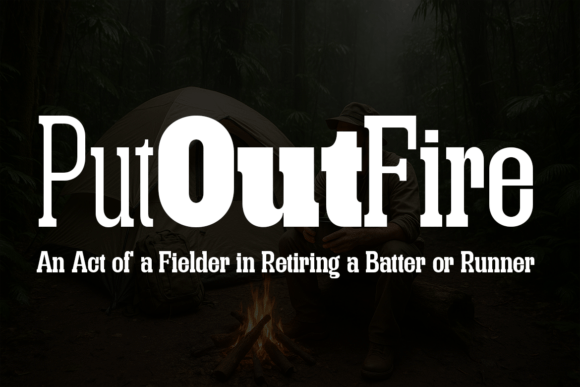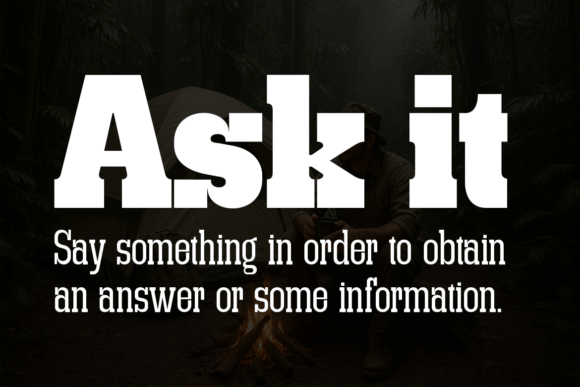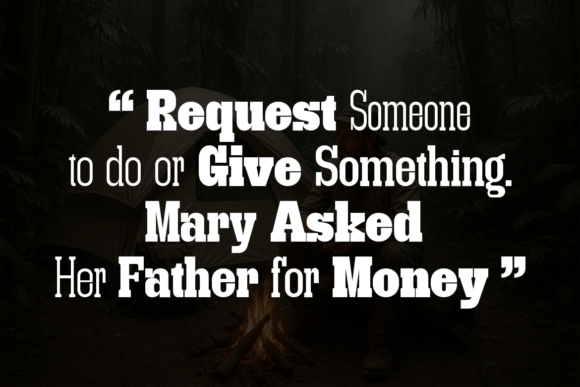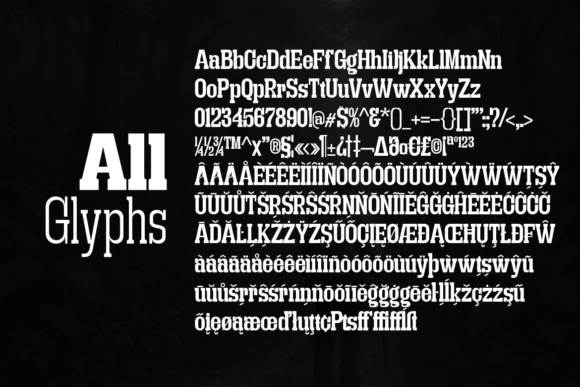
Introducing Getup Semi Condensed Font: A Powerful Slab Serif for Modern Designs
In the world of typography, a font can make or break a design. For designers and crafters looking for a unique and versatile typeface, GetUp Semi Condensed is an excellent choice. This font blends confident slab serif character with smoother text flow, making it perfect for a wide range of applications. In this article, we’ll explore the features and benefits of GetUp Semi Condensed and why it’s a must-have for any designer.
A Family of 10 Weights: Versatility at Its Best
GetUp Semi Condensed is part of the GetUp family, offering 10 full weights ranging from Thin to Extra Black. This extensive range allows designers to experiment with different styles and tones, ensuring that their text always looks polished and refined. Whether you’re working on a logo, title sequence, packaging, or social media graphics, GetUp Semi Condensed has got you covered.
Weight Description
Thin Delicate and subtle, perfect for elegant designs
Light Adding a touch of sophistication to your text
Regular The perfect balance between elegance and readability
Medium Adding a hint of boldness to your design
Bold Making a statement with confident typography
Extra Bold Adding emphasis and drama to your text
Black Creating a striking impression with bold typography
Extra Black The ultimate in bold typography, commanding attention
Smooth Text Flow and Readability
GetUp Semi Condensed is designed to provide smooth text flow and enhanced readability. Its slightly compressed proportions make it perfect for designs where space is limited, without sacrificing the iconic strength of the GetUp family. This font is ideal for body text, headings, and titles, ensuring that your message is conveyed clearly and effectively.
Iconic Strength and Refined Style
GetUp Semi Condensed boasts an iconic strength that’s hard to ignore. Its slab serif character adds a touch of confidence and sophistication to any design. The refined style of this font makes it perfect for high-end branding, packaging, and advertising. Whether you’re working on a luxury brand or a modern startup, GetUp Semi Condensed is sure to impress.
Applications and Use Cases
GetUp Semi Condensed is an incredibly versatile font, suitable for a wide range of applications, including:
• Logo design: Create a lasting impression with a bold and confident logo
• Title sequences: Add drama and emphasis to your title sequences
• Packaging: Stand out on store shelves with eye-catching packaging
• Social media graphics: Elevate your social media presence with stylish graphics
GetUp Semi Condensed is a powerful slab serif font that’s sure to elevate your designs. With its 10 full weights, smooth text flow, and iconic strength, this font is perfect for designers and crafters looking for a versatile and refined typeface. Whether you’re working on a branding project, packaging, or social media graphics, GetUp Semi Condensed is an excellent choice. Try it today and experience the difference for yourself!